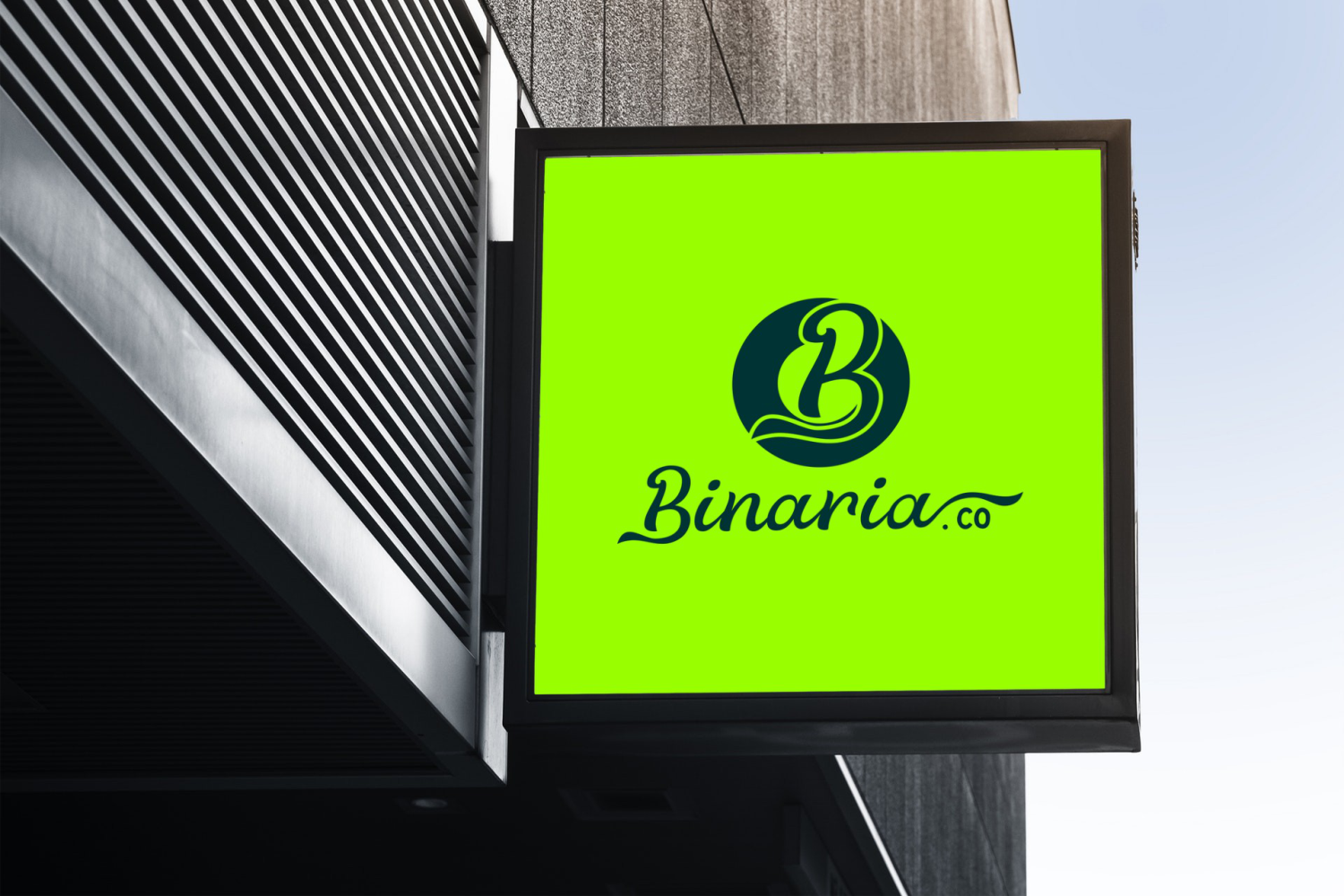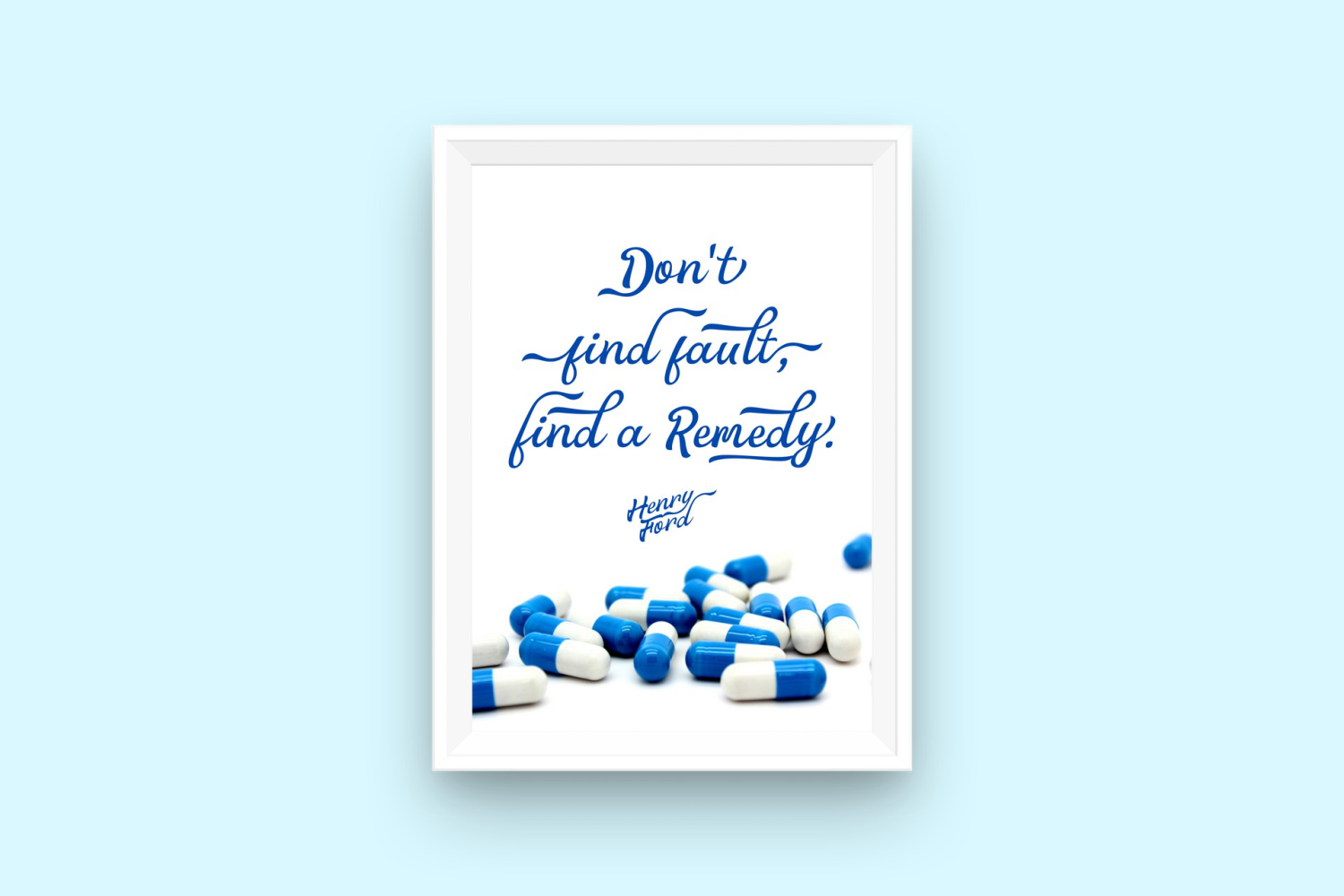
Discover the Elegance of Anglena Font: A Swashy Script for Modern Designs
In the world of typography, fonts play a crucial role in bringing creativity and personality to various design projects. Among the numerous fonts available, Anglena Font stands out for its unique blend of elegance and modernity. This gorgeous, swashy script font is ideal for a wide range of creative project types, and its beauty truly shines in bright, modern landscapes.
What is Anglena Font?
Anglena Font is a meticulously crafted script font that exudes sophistication and charm. Its swashy elements add a touch of flair, making it perfect for designs that require a bit of elegance and whimsy. Whether you’re working on a branding project, a wedding invitation, or a fashion magazine, Anglena Font is sure to make a statement.
Key Features of Anglena Font
- Swashy Elements: The font features beautiful swashy elements that add a decorative touch to your designs.
- Elegant and Modern: Anglena Font strikes the perfect balance between elegance and modernity, making it versatile for various design projects.
- Highly Readable: Despite its decorative nature, the font remains highly readable, ensuring that your message is conveyed clearly.
- Wide Range of Use Cases: From branding and advertising to packaging and editorial design, Anglena Font can be used in a multitude of creative projects.
Why Choose Anglena Font?
Choosing the right font for your project can be overwhelming, but Anglena Font offers several compelling reasons to make it your top pick:
- Unique Aesthetic: Anglena Font offers a unique aesthetic that sets it apart from more traditional fonts. Its swashy elements and elegant lines make it perfect for designers looking to add a touch of sophistication to their work.
- Versatility: This font is incredibly versatile and can be used in a variety of contexts, from digital designs to print materials.
- Easy to Pair: Anglena Font pairs well with a range of other fonts, making it easy to find complementary fonts for your project.
Using Anglena Font in Your Designs
Anglena Font can elevate a wide range of design projects. Here are some ideas to get you started:
- Branding and Logos: Use Anglena Font to create a memorable logo or to develop a cohesive brand identity.
- Wedding Invitations: Add a touch of elegance to your wedding invitations and stationery with this beautiful script font.
- Fashion and Beauty: Anglena Font is perfect for fashion and beauty brands looking to convey a sense of style and sophistication.
- Editorial Design: Use this font in magazine and newspaper designs to add a touch of class and elegance.
Tips for Working with Anglena Font
To get the most out of Anglena Font, consider the following tips:
- Use it Sparingly: While Anglena Font is beautiful, it’s best used sparingly to avoid overwhelming the reader.
- Experiment with Colors: This font looks stunning in bright, modern colors, so don’t be afraid to experiment and find the perfect hue for your design.
- Pair it Wisely: Choose fonts that complement Anglena Font’s elegant and swashy elements to create a harmonious design.
Anglena Font is a stunning script font that can elevate a wide range of design projects. Its unique blend of elegance and modernity makes it perfect for designers looking to add a touch of sophistication to their work. With its swashy elements, high readability, and versatility, Anglena Font is sure to become a favorite in your design toolkit.